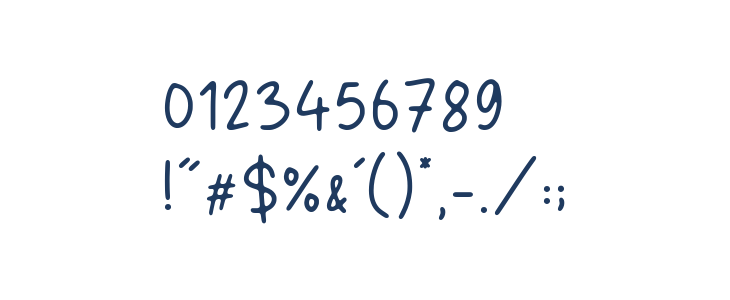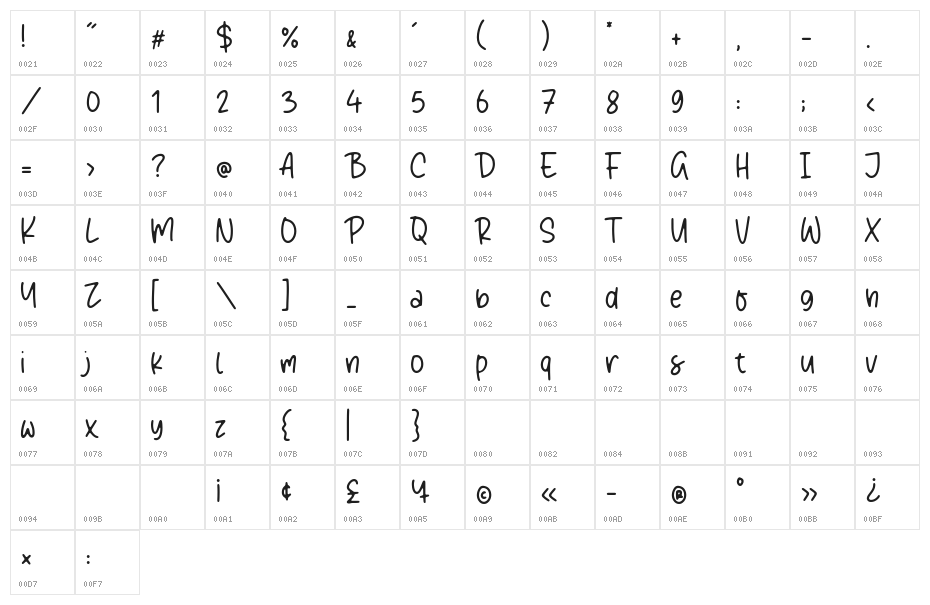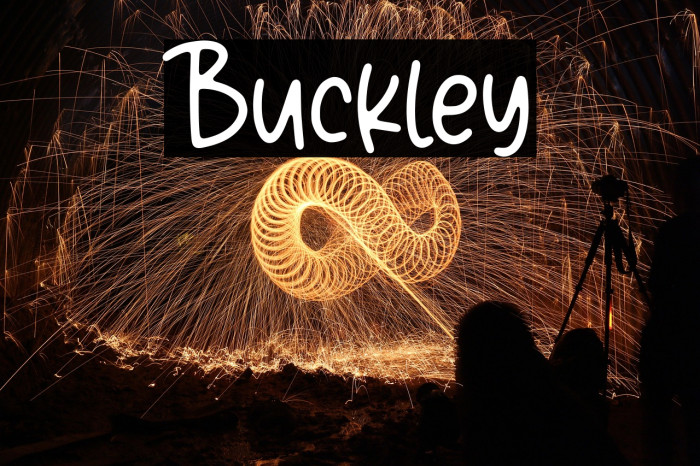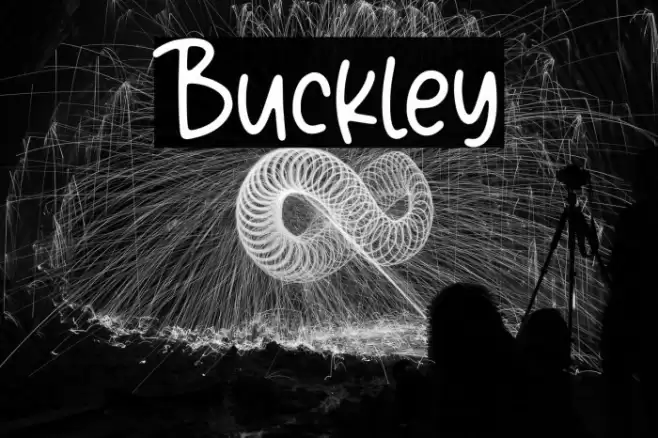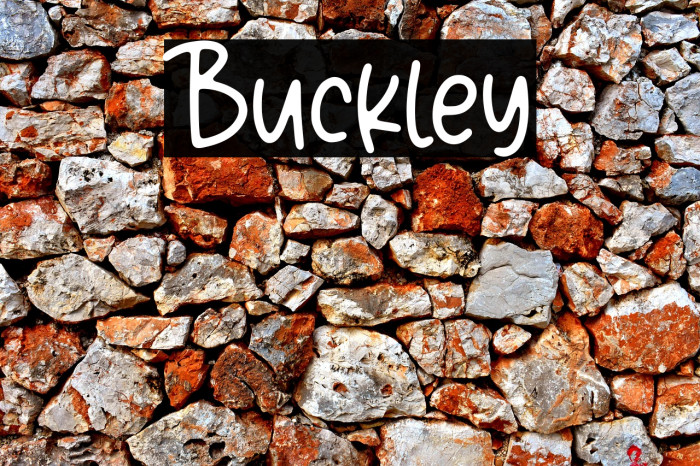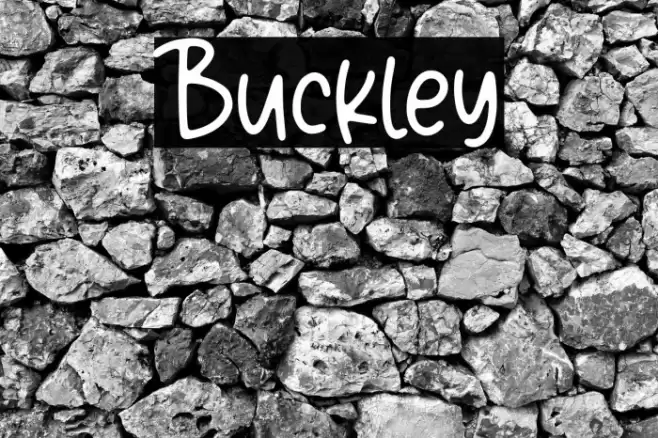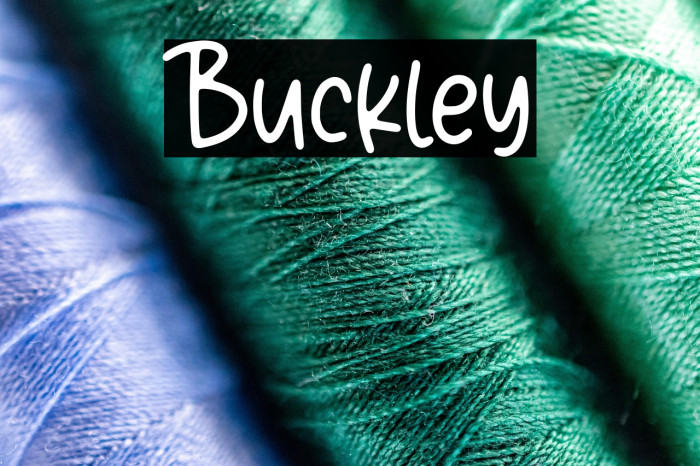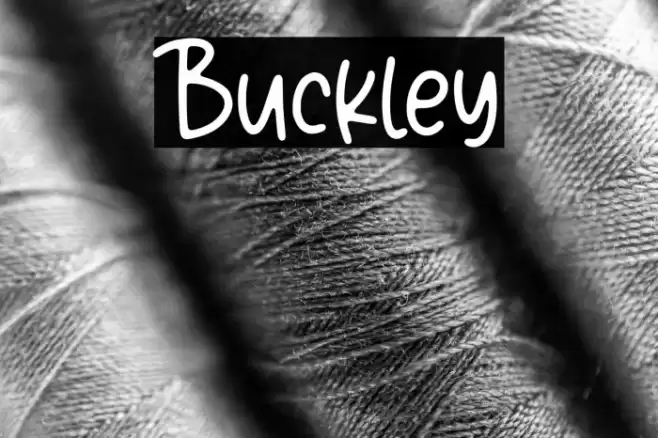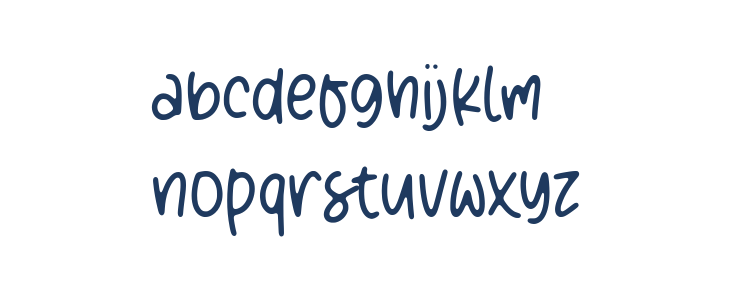
Buckley Font
Buckley Description
This font features a playful and casual handwritten style, characterized by its smooth, rounded edges and slightly irregular letterforms. The uppercase and lowercase letters maintain a consistent flow, giving the text a cohesive and friendly appearance. The numerals and special characters are designed to match the overall style, ensuring uniformity across all elements. The font's informal nature makes it suitable for projects that require a personal touch or a relaxed vibe. Its legibility is enhanced by the moderate spacing between characters, which prevents overcrowding and maintains readability.
| Use Case | Headlines, Informal text, Branding |
| Proposed Projects | Ideal for greeting cards, invitations, children's books, and casual branding. |